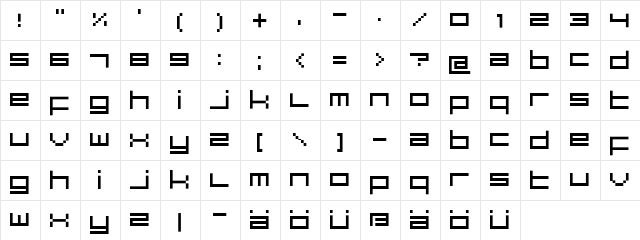
Superphonic Regular
Design Context for Superphonic Typeface
Superphonic is a composed and adaptable typeface that performs quietly and consistently across a wide range of design contexts.